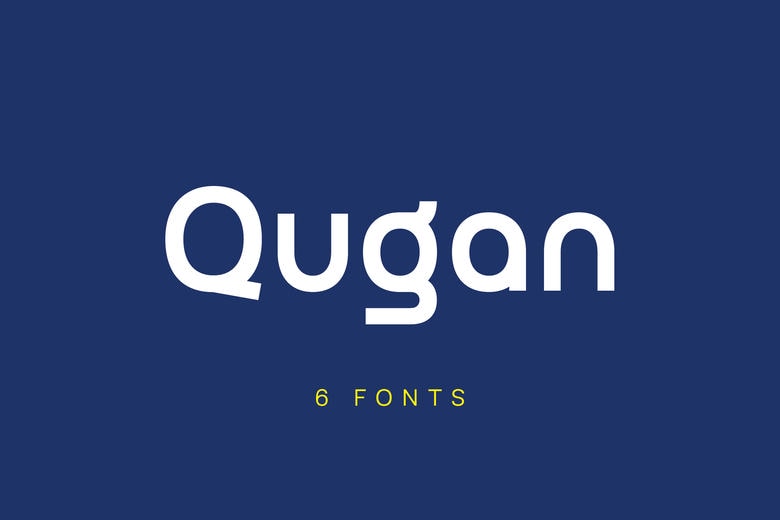
Qugan Font Family
Qugan is a smooth and advanced geometric, sans-serif typeface, created in the contemporary world. This Qugan typeface is a perfect compromise between technical accuracy and friendly minimalism, which is why it is an excellent tool in the corporate logos, tech startups, and architectural branding. Qugan font family can be used in 6 different weights to provide you with a smooth visual hierarchy between websites, business cards, and high-end packaging.
Adding the Qugan typeface to your workflow, you acquire a universal tool that will be not out of place in both a luxurious fashion and a design of the industry. Combine it with a high contrast serif to give a modern editorial appearance or apply it plain to give a pure bold appearance.
Qugan Sans Serif Font Family